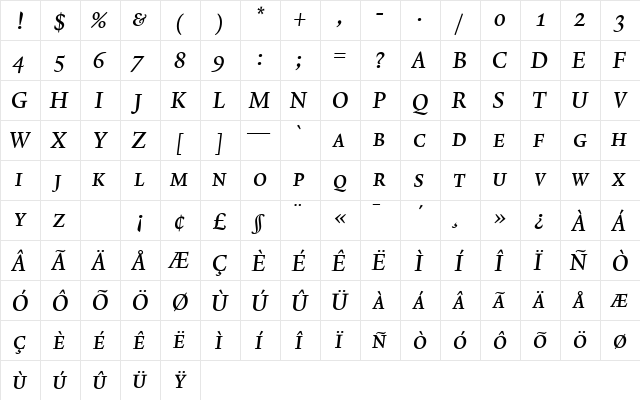
Lexicon No1 Italic B Exp
| Style | Italic B Exp |
Design Context for Lexicon No1 Typeface
Lexicon No1 is a composed and adaptable typeface that performs quietly and consistently across a wide range of design contexts. The dynamic lean of this cut emphasises speed and emphasis in any layout.
Pro Tip: Try Lexicon No1 for annotation and caption copy alongside an upright companion — the contrast in angle creates a dynamic but ordered typographic system.